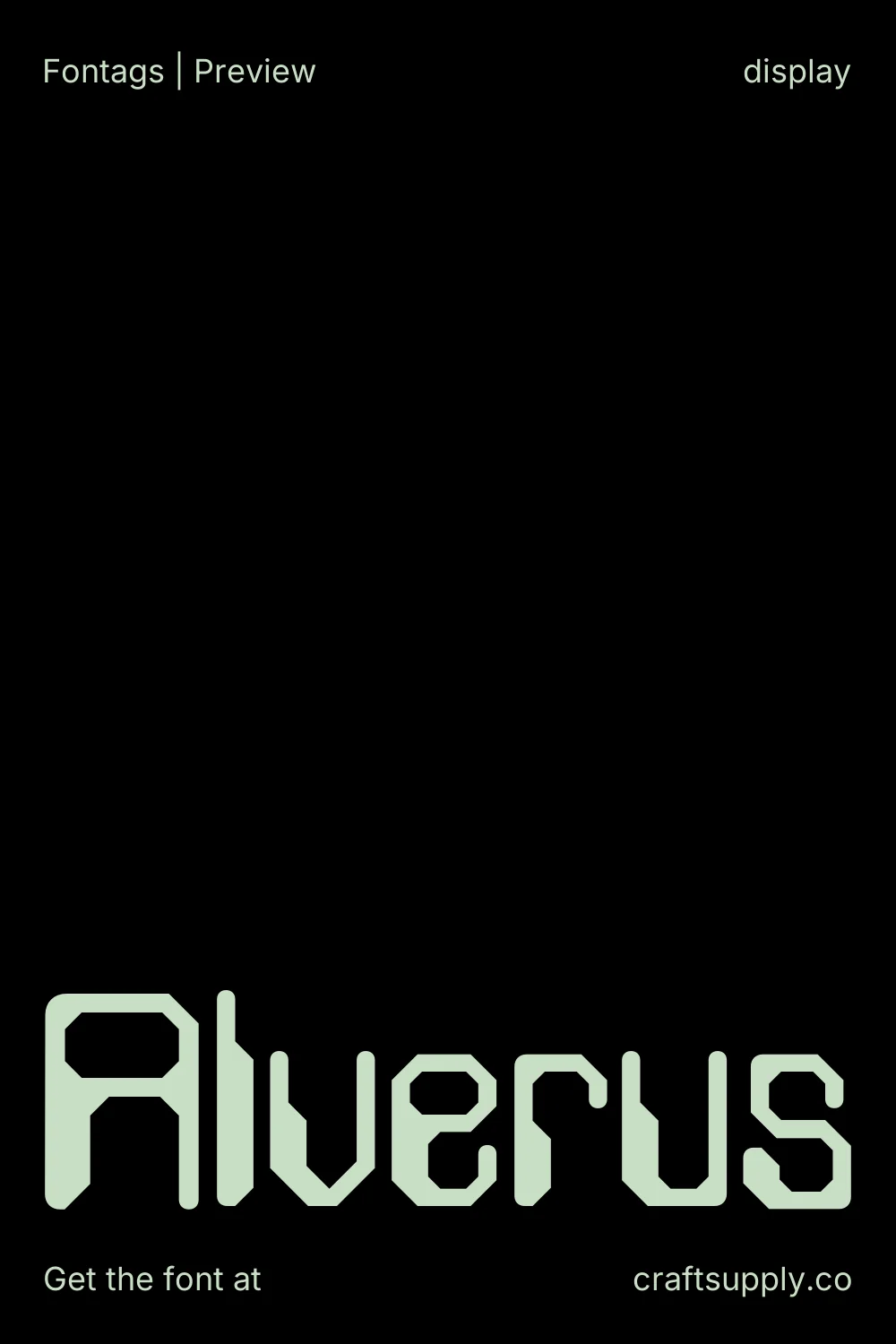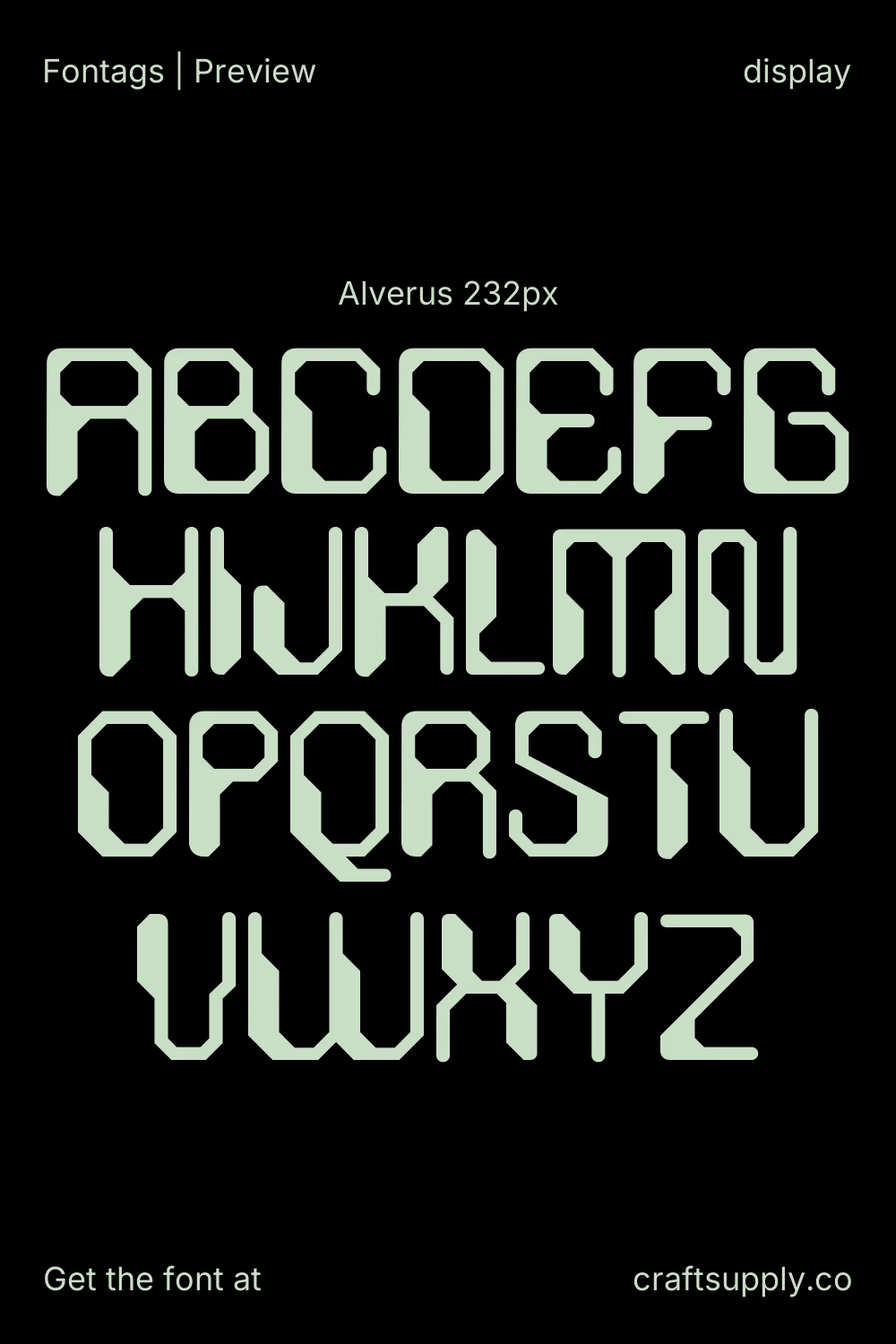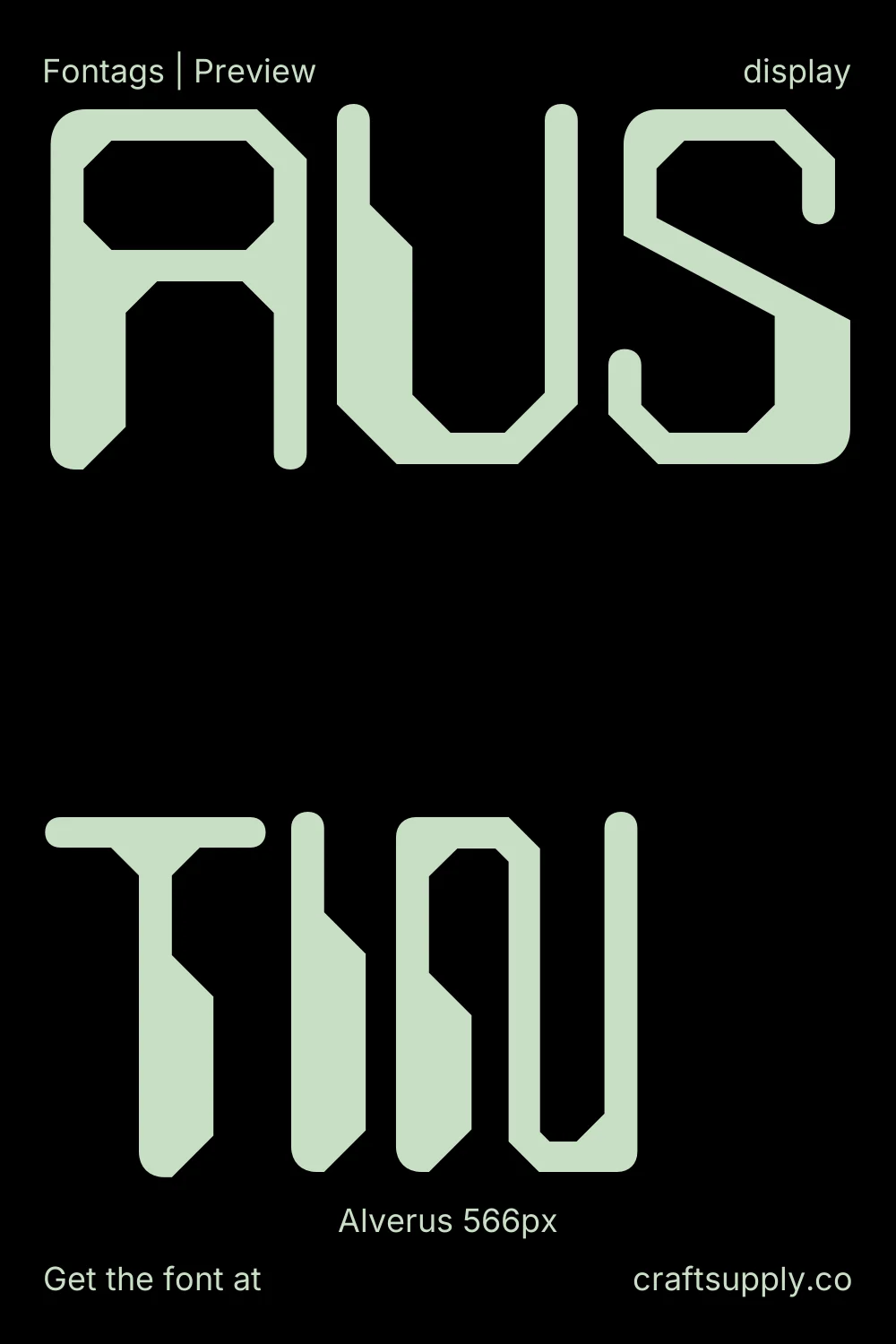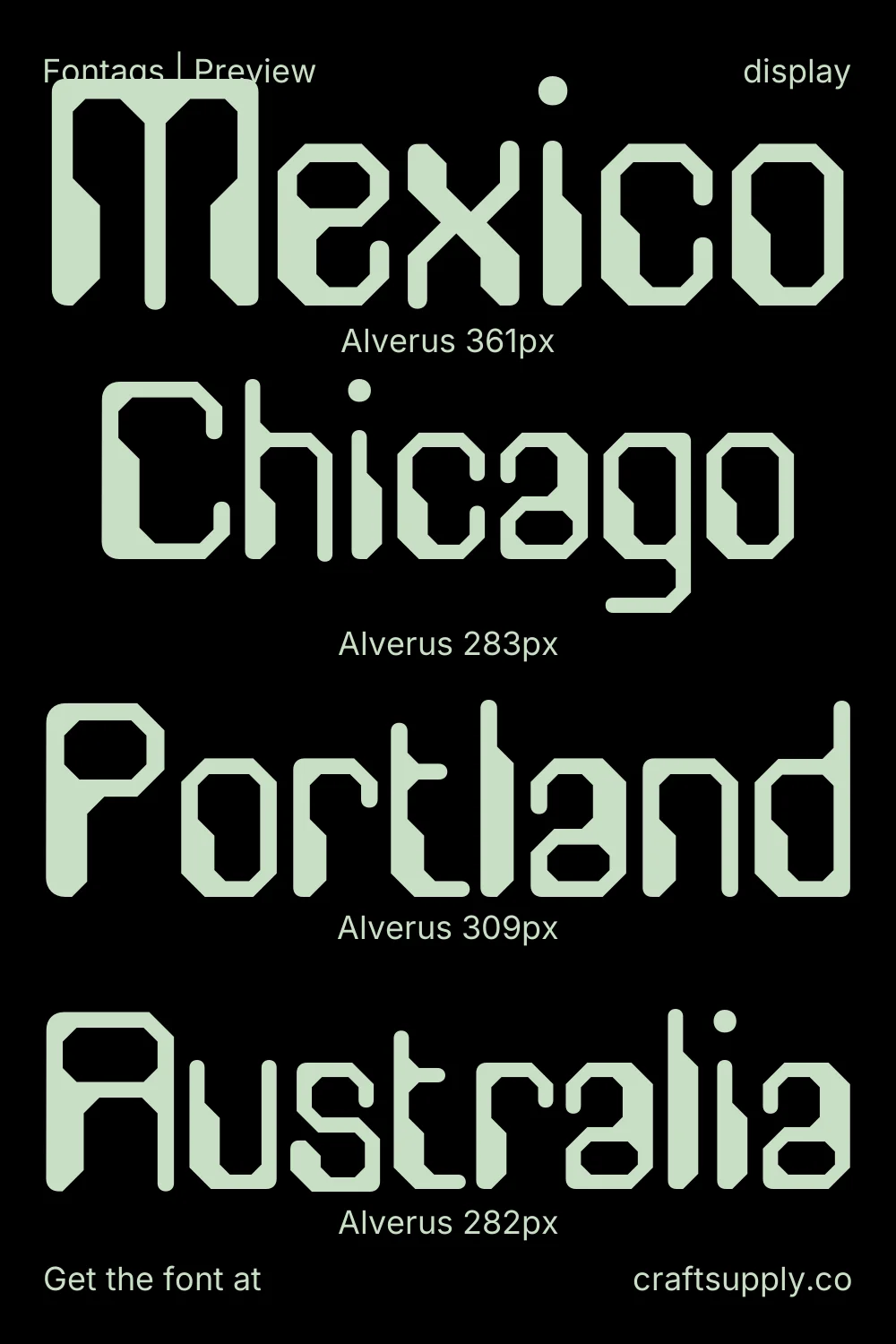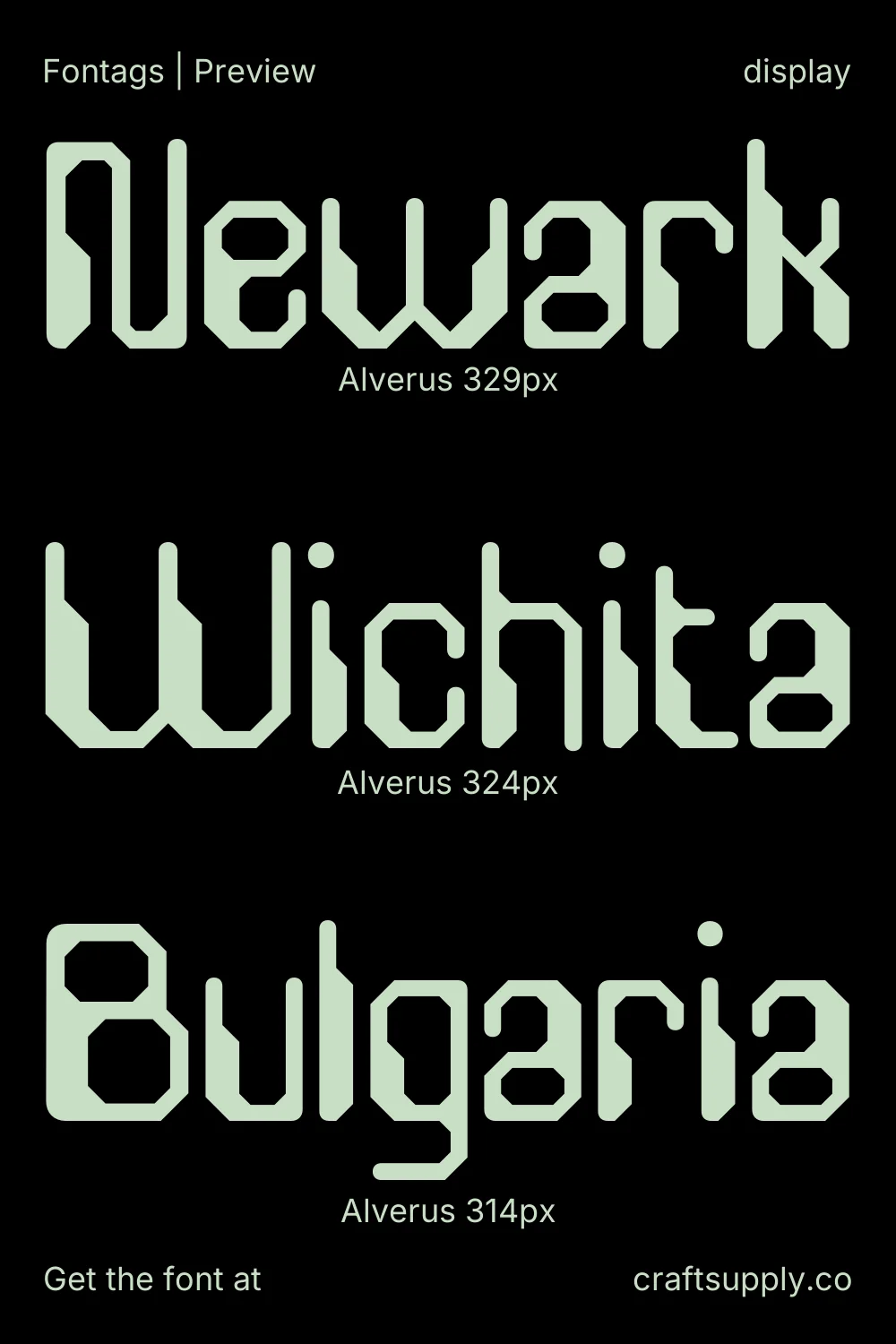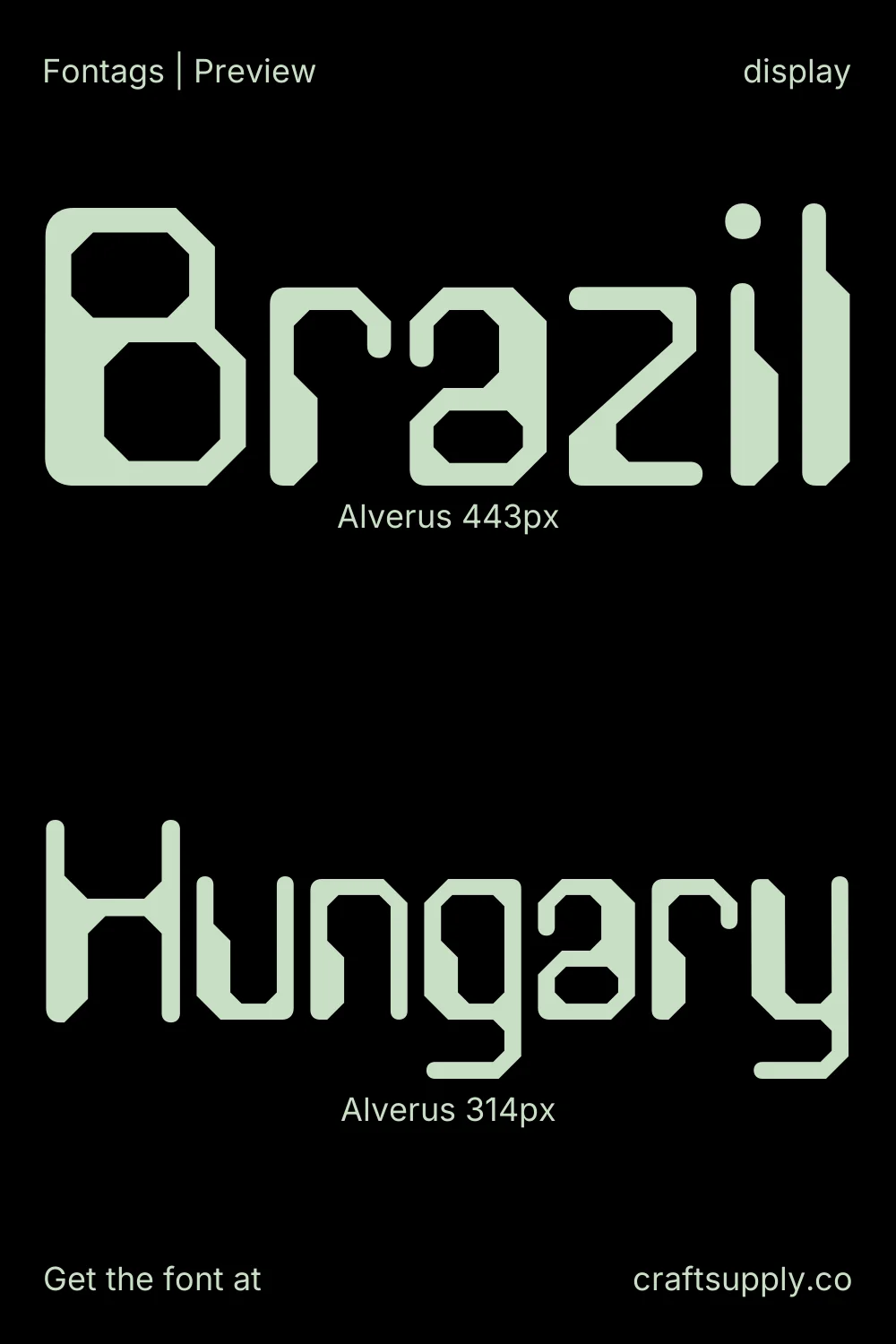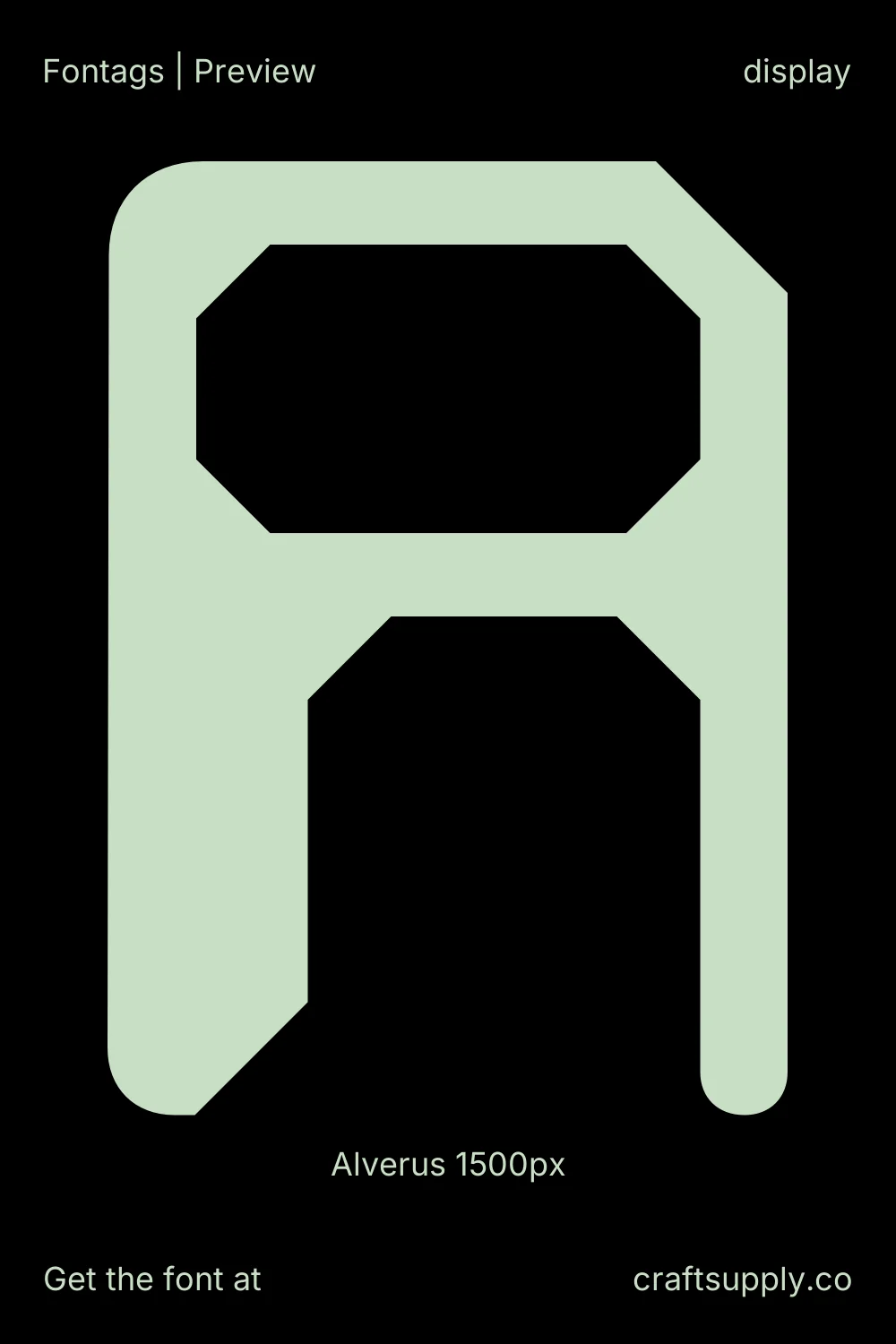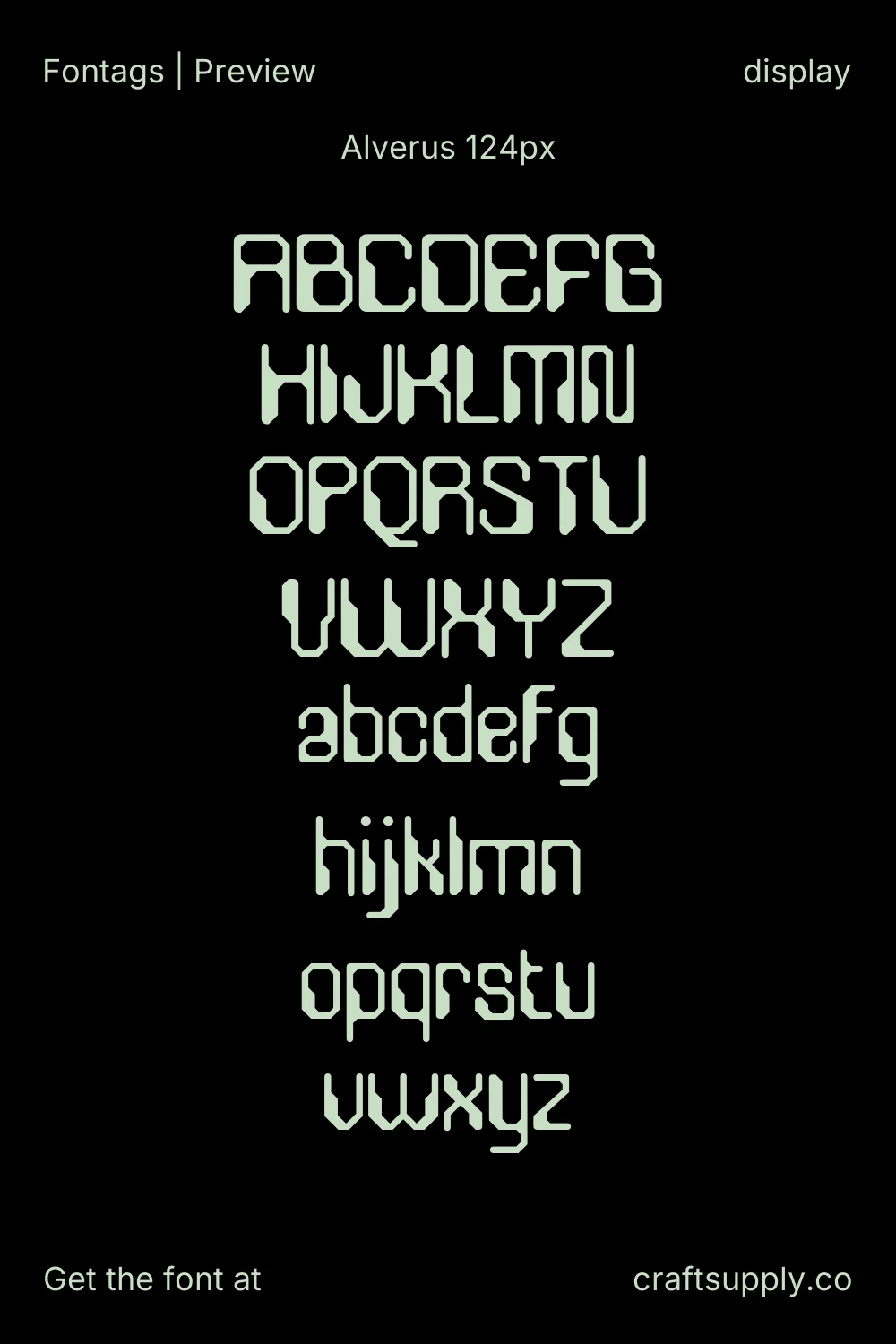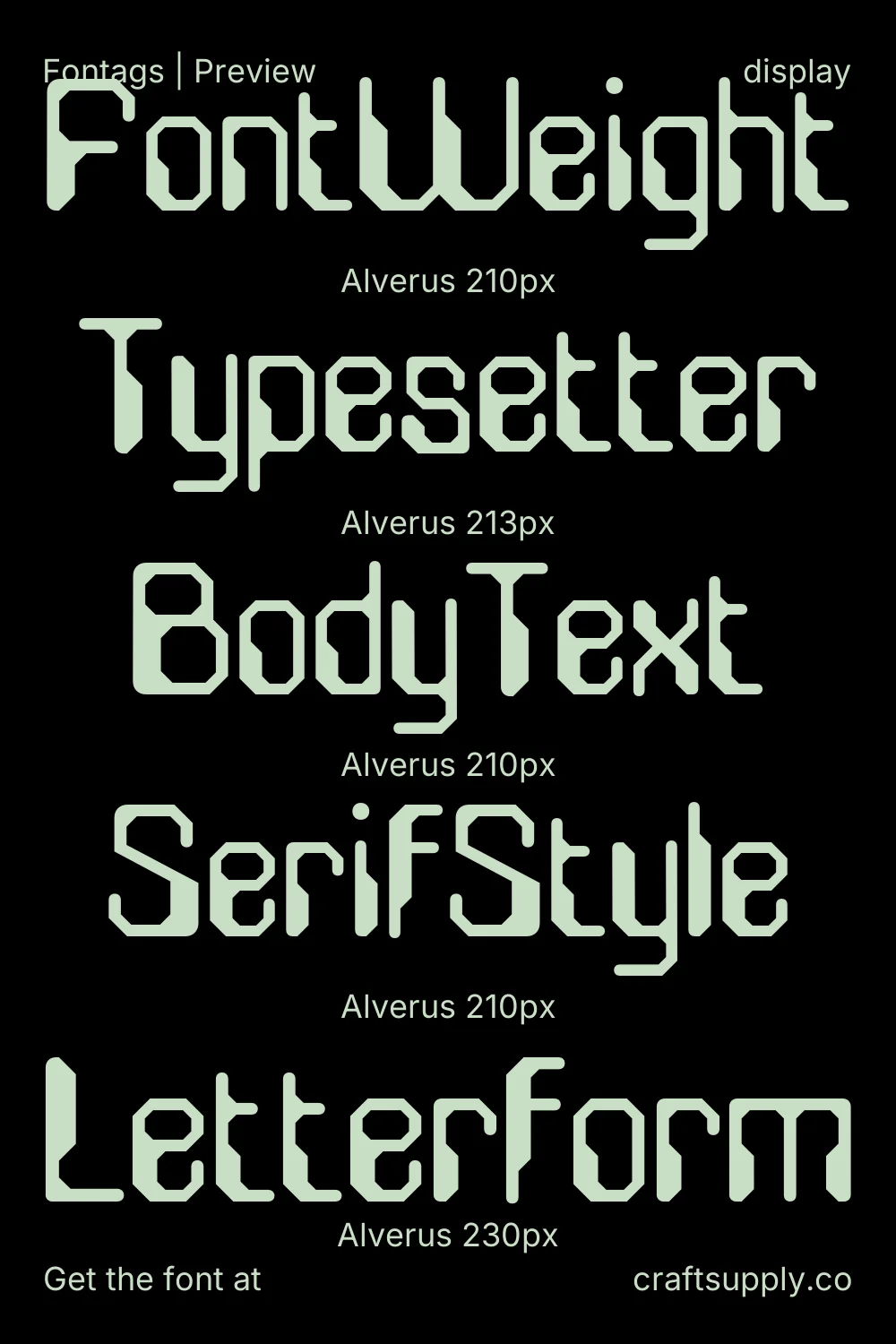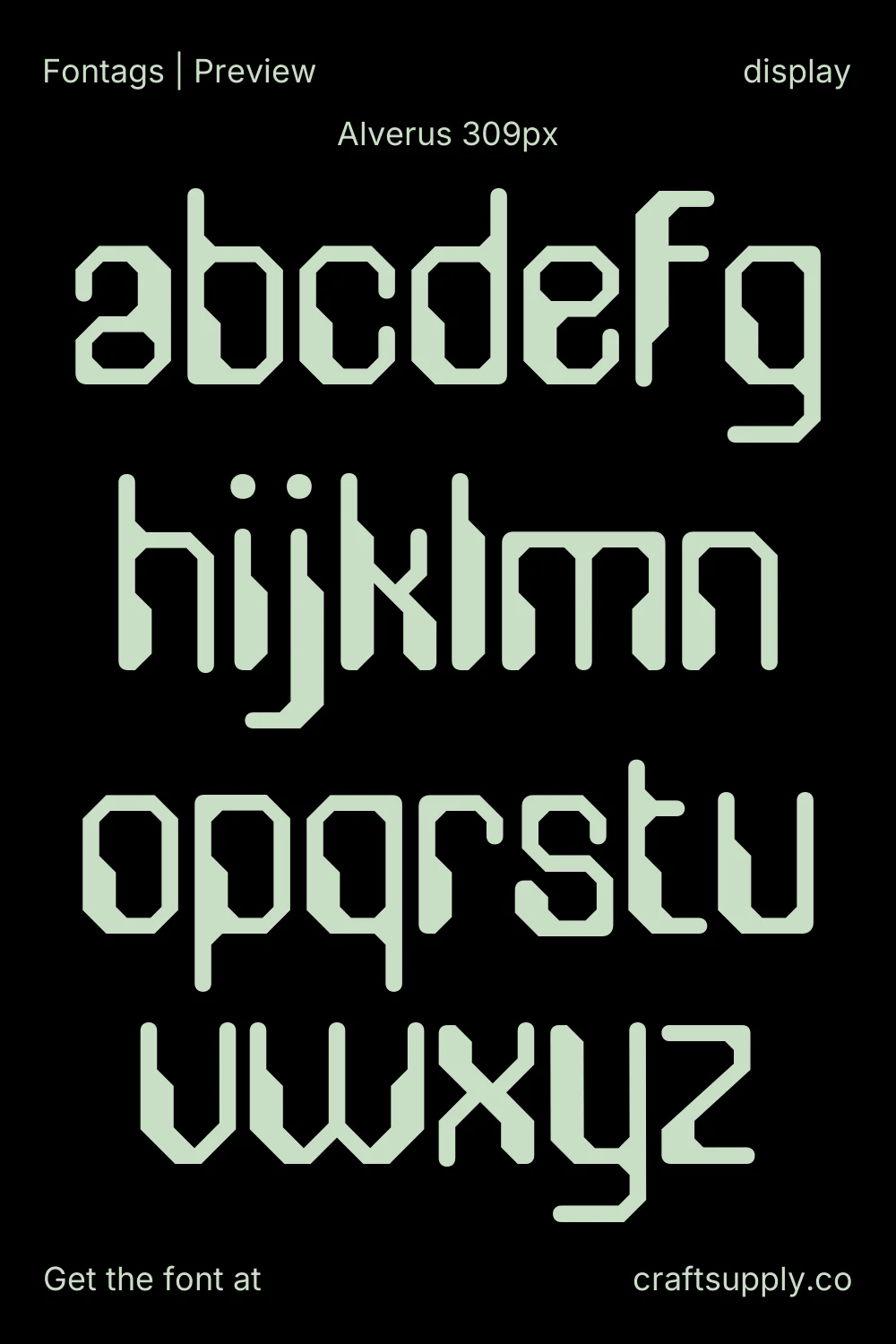
Alverus
Alverus is a futuristic display typeface inspired by Gundam mecha aesthetics, featuring bold, unconventional letterforms with sharp, tech-infused geometry. Its sleek, high-tech design brings a cutting-edge, advanced machinery feel to titles posters, and branding projects that demand attention. Available in Regular and Italic styles with multilingual support.